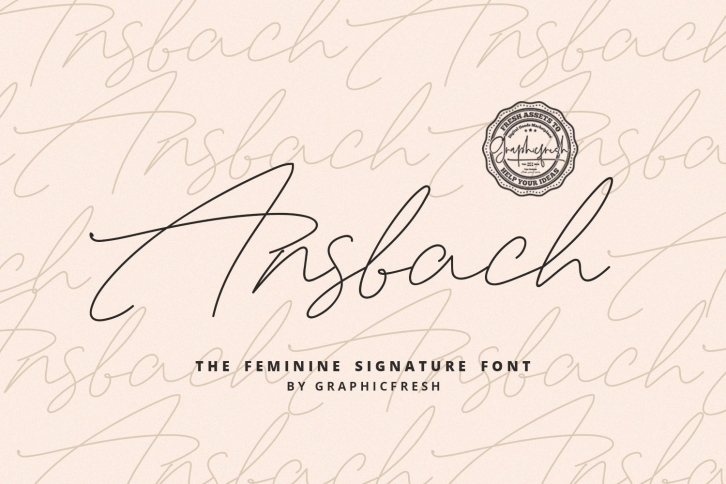
Ansbach | The Feminine Signature
Introducing Ansbach | The Feminine Signature. It comes with an elegant and feminine style which is perfect to make any design stand out! This font is perfect for branding, wedding invites, magazines, mugs, business cards, quotes, posters, and more.
Ansbach Type Features:
- Numerals & Punctuations
- Suitable for Headlines, Logotypes, Signs, Posters, Letterhead, T-Shirt and many more.